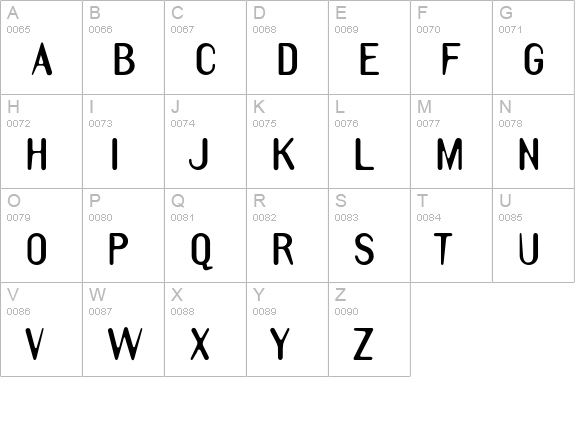
TemplateGothicBold Font Details
Introducing TemplateGothicBold font, a striking and bold typeface that exudes an air of confidence and modernity. With its clean lines and sharp edges, this font is perfect for making a powerful statement in your designs. Featuring a distinct gothic-inspired design, TemplateGothicBold adds a touch of elegance and sophistication to any project. Its bold weight commands attention, making it ideal for headlines, titles, logos, and branding. But the best part? TemplateGothicBold is completely free! Yes, you read that right. This exceptional font is freely available to download at FontsMarket.com, ensuring that everyone can access its beauty and versatility without any cost. Whether you're a professional designer looking to enhance your creative projects or an enthusiast seeking a stylish font for personal use, TemplateGothicBold delivers in every aspect. Its versatility allows it to seamlessly adapt to various design styles and themes, making it a valuable asset in your font library. With TemplateGothicBold, your designs will stand out from the crowd with its bold presence and unique aesthetic. So why wait? Download this remarkable font for free at FontsMarket.com and unlock the potential of your designs today!